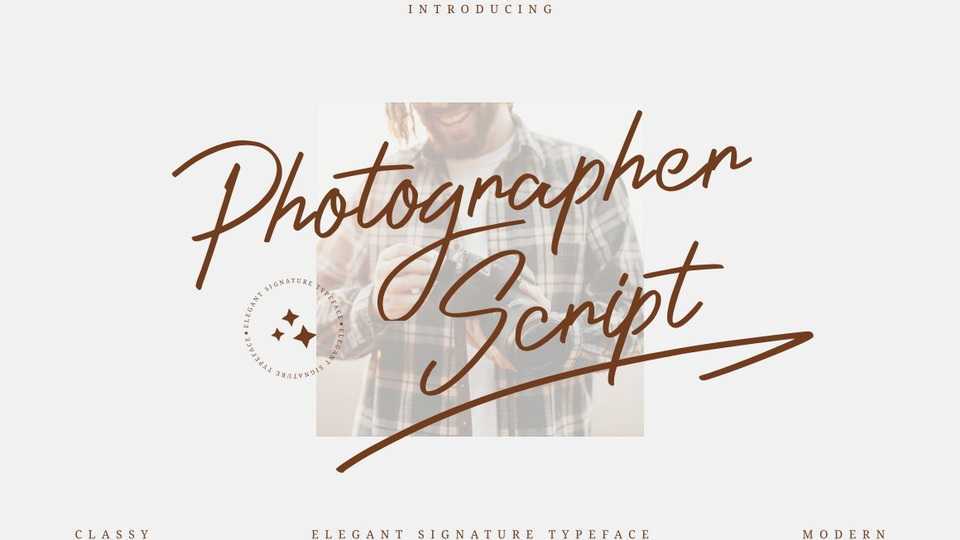
Download Photographer Script font, an exquisite handwritten typeface, masterfully designed to become a true favorite. Photographer Script maintains its classy calligraphic influences while feeling contemporary and fresh.
Designer: Rissyletter Studio